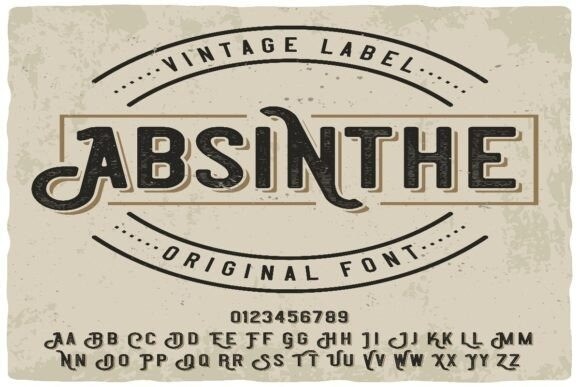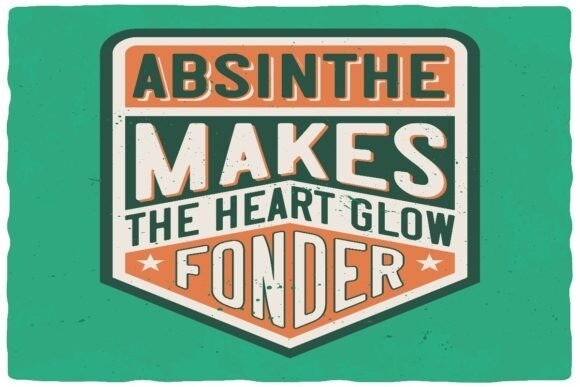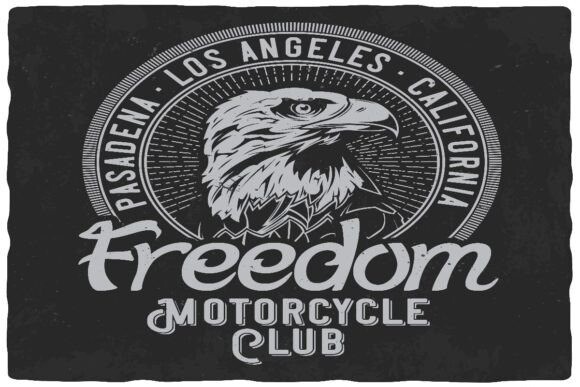
Absithe Font
Absithe Font, This font was designed with care to give your project an attractive and full-of-character look. Each character is carefully designed to ensure uniqueness in each character. Suitable for a variety of creative projects, such as posters, logos, banners, and more. This font was created with the highest quality for sharp prints and digital viewing. Add a professional and creative touch to your designs with this display font. Get it right away and start creating stunning masterpieces!